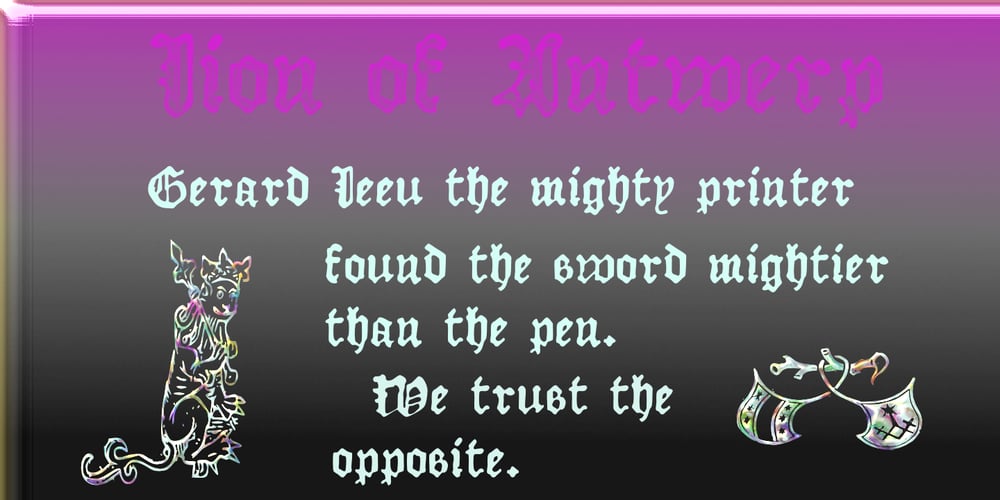
Lion of Antwerp Font Family was designed by Shane Brandes and published by Proportional Lime. Lion of Antwerp contains 3 styles and family package options. Gerard Leeu met his untimely end in a work related altercation. He was a notable printer in both the cities of Gouda and Antwerp dying in 1492. This font face is based on the “Die gesten of gheschienisse van romen” typeface circa 1481. It is both very legible and yet oddly archaic in flavor. This realization contains roughly 600 defined glyphs for use in our era.